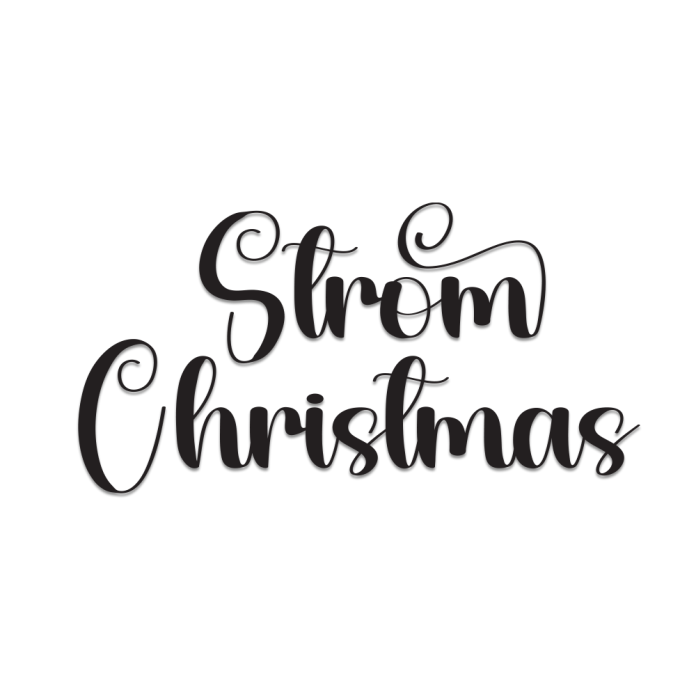
Strom Christmas is a joyful handwriting font that captures the magical spirit of the holiday season. With its playful strokes and warm handwritten charm, it’s perfect for creating designs that feel merry and bright.
Handwriting style with a cozy festive vibe
Great for Christmas cards, holiday invitations, and festive branding
Smooth, flowing letters with a personal touch
Works beautifully for quotes, labels, and seasonal packaging
Add a sprinkle of holiday cheer to your designs with Strom Christmas — where handwritten warmth meets Christmas magic.